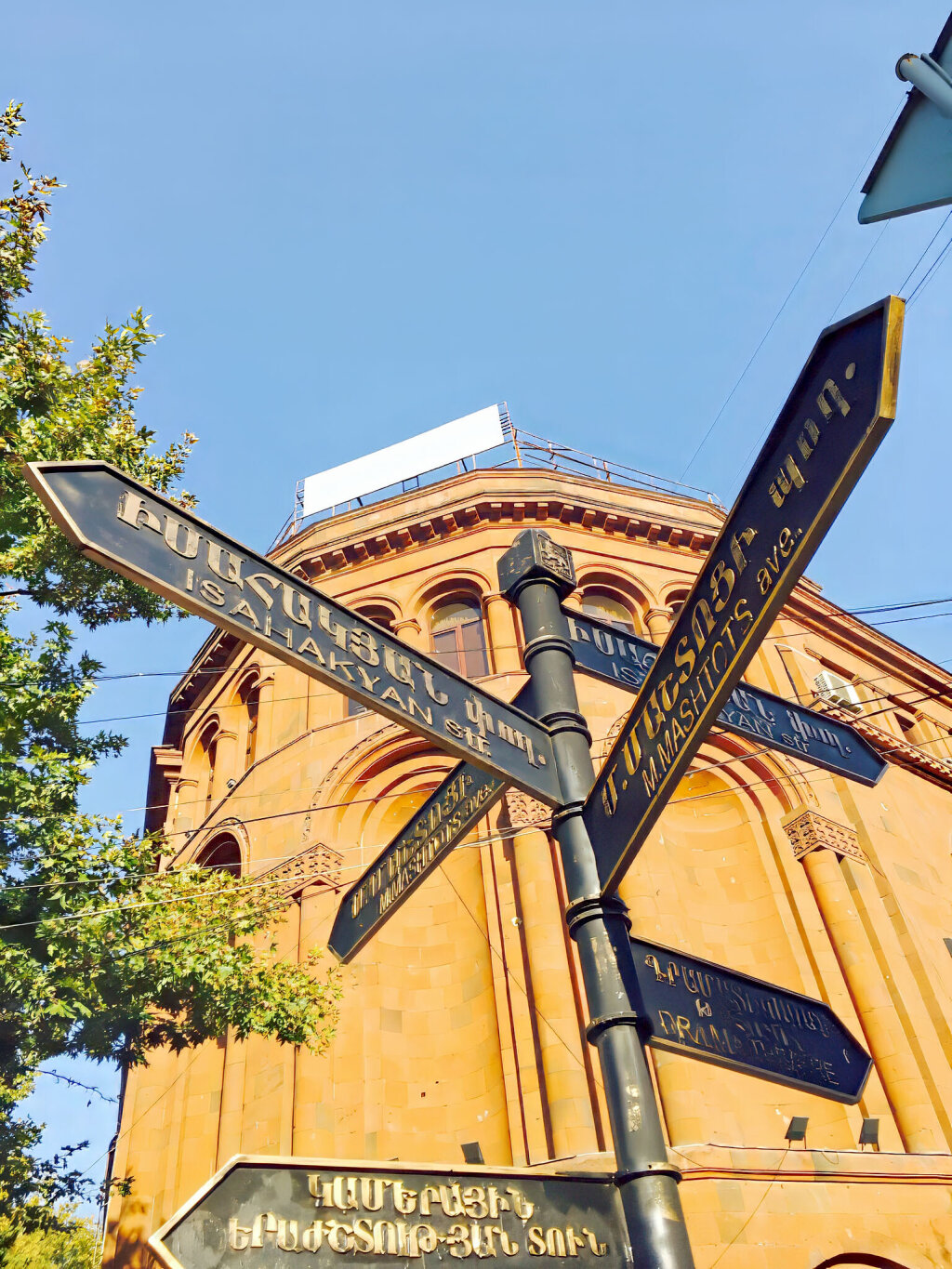
The land in between
Orient meets Occident, Script meets Identity, Yesterday meets Tomorrow
When it comes to the future of education, who would think of a small country in the Caucasus? In the intermediate kingdom of Armenia, characterised to this day by 2,000 years of conquest and occupation, the most amazing ideas are emerging around the TUMO Center for Creative Technologies. How can children really learn something for life alongside school ... and at the same time fundamentally change a society that is still characterised by the USSR/Russia? Why was this country one of the first to establish a state religion and a completely new writing system in the first centuries after Christ? It is certainly not only due to the outstanding Armenian brandy or the legend that wine actually has its roots here.
On this study trip, we visit friends and colleagues who show us their everyday private and professional lives. A search for traces between the catacombs of the Matenadaran State Library, the TUMO digitisation project for the preservation of Armenian cultural sites and Lavash bread baked in earth ovens.
ABC: introduction to the Armenian language and the Armenian alphabet
Workshop with Ruben Malayan: writing in Armenian and using calligraphy to develop the ideas of everyday life into the visionary
Guided tour of the Mesrop-Mashtoz Institute for Ancient Manuscripts, or Matenadaran for short. The curator, senior researcher and GRANSHAN juror Davit Ghazaryan will give us an insight into the collection and the restoration laboratory: How is the very special Armenian red actually made? If all goes well, a particularly interested small group will then be allowed to visit the catacombs, where books from the early days of book printing can be found, as well as the Armenian national treasure, the Echmiadzin Gospels from 989, set in an ivory binding from the 6th century.
GRANSHAN Conference & Ceremony: deep insights into Armenian and Georgian typeface creation and culture; with the presentation of GRANSHAN diplomas to the Armenian winners of the 13th GRANSHAN Type Design Competition 2023/2024 and the awarding of the "GRANSHAN Lifetime Honour Medal"
Drive via Oshakan with its garden of letters to the highest mountain in Armenia, Aragats. Here, even in September, it is cold enough to eat kash, the Armenian national soup made from cow’s feet boiled in water for at least one night. Depending on your taste, with a lot or a little less garlic and accompanied by vodka. On the way back, stop at the Alphabet Monument, a bizarre landscape of letters made of stone in the Artashavan area, erected to mark the 1,600th anniversary of the Armenian alphabet. Return to Yerevan at approx. 16:30.
Visit to Gyumri and the local TUMO branch: presentation of the digitisation project for the preservation of Armenian cultural sites